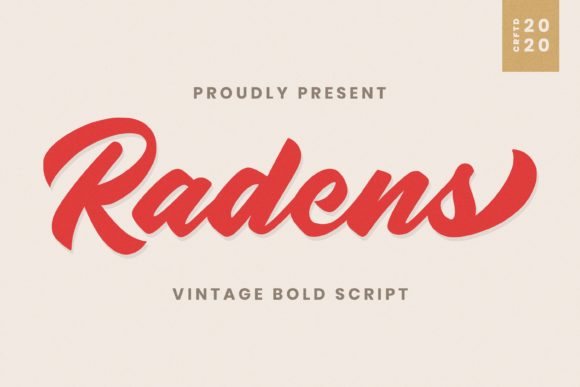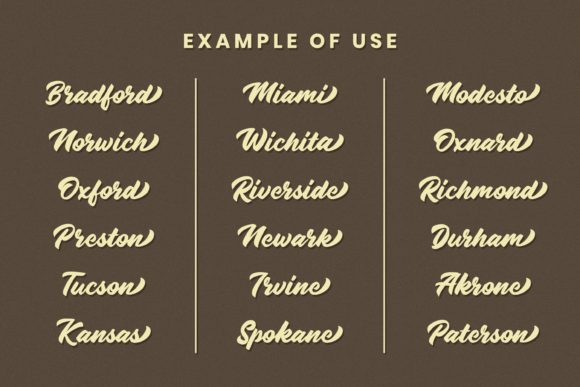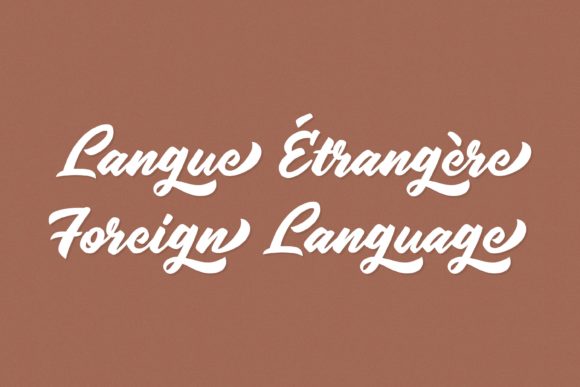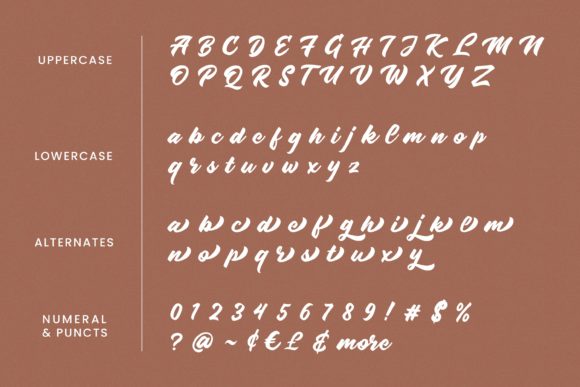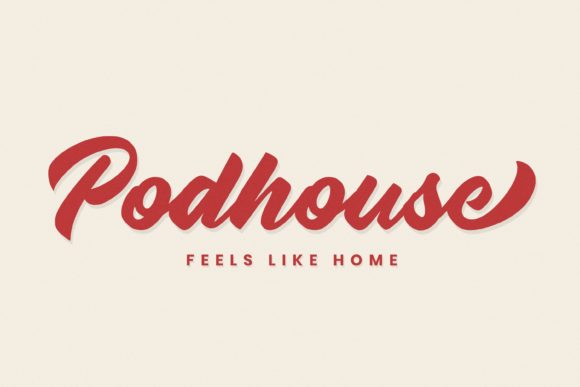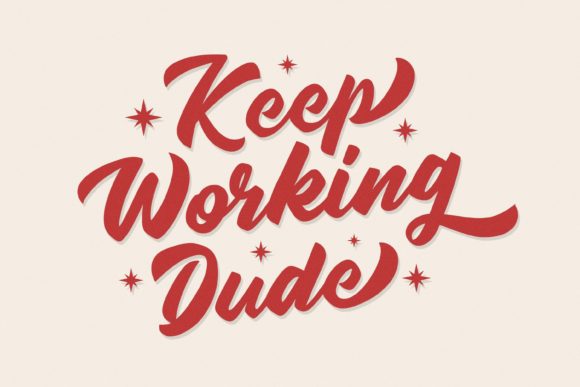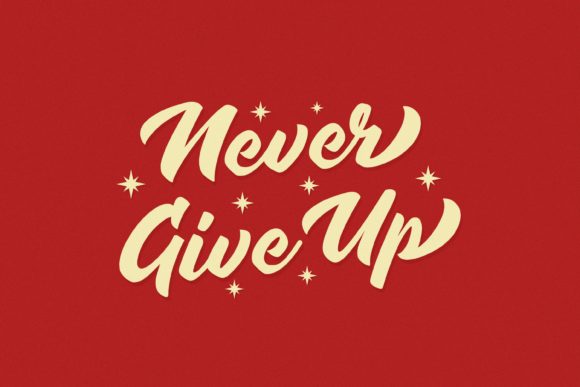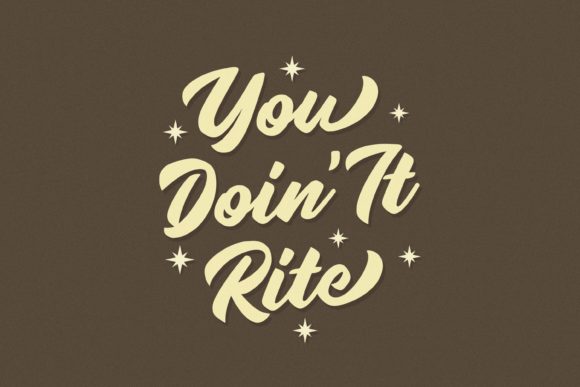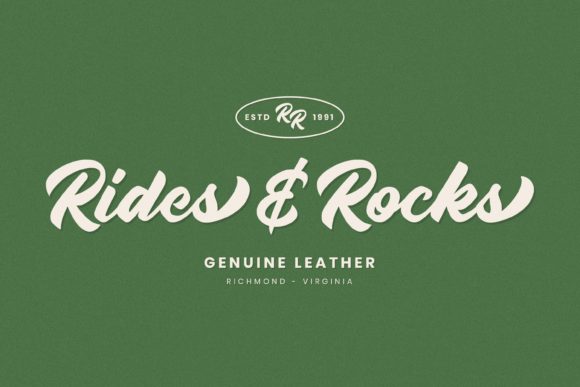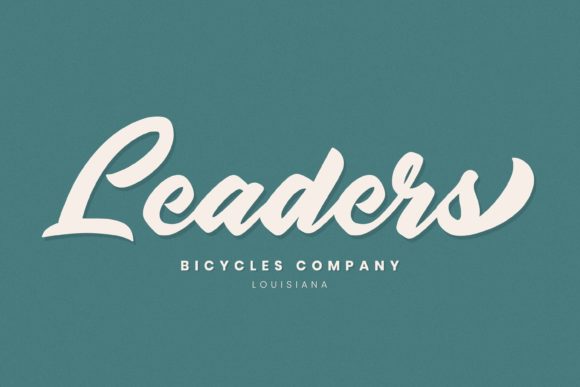
Radens Font
About Radens Font
Radens feels playfully nostalgic and delivers an incredible vintage aesthetic. Use it to add that special retro touch to any design idea you can think of! This masterfully designed script is a true must-have.